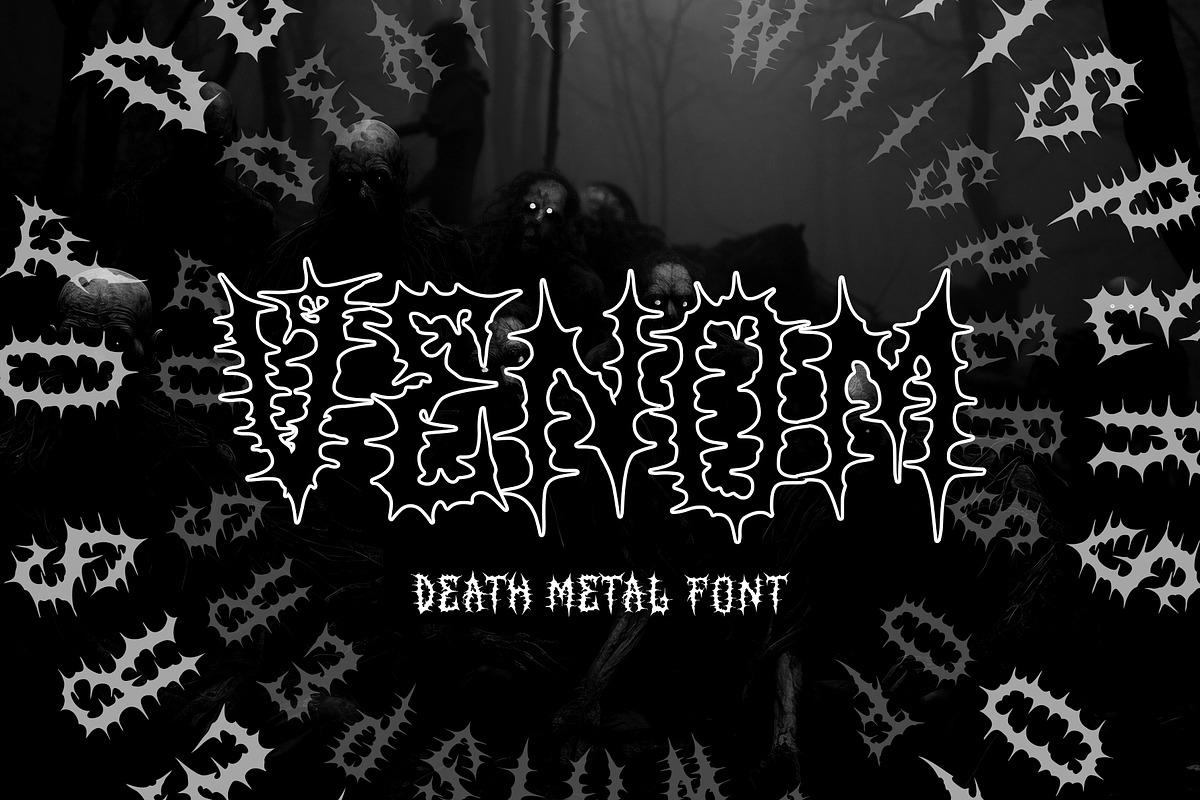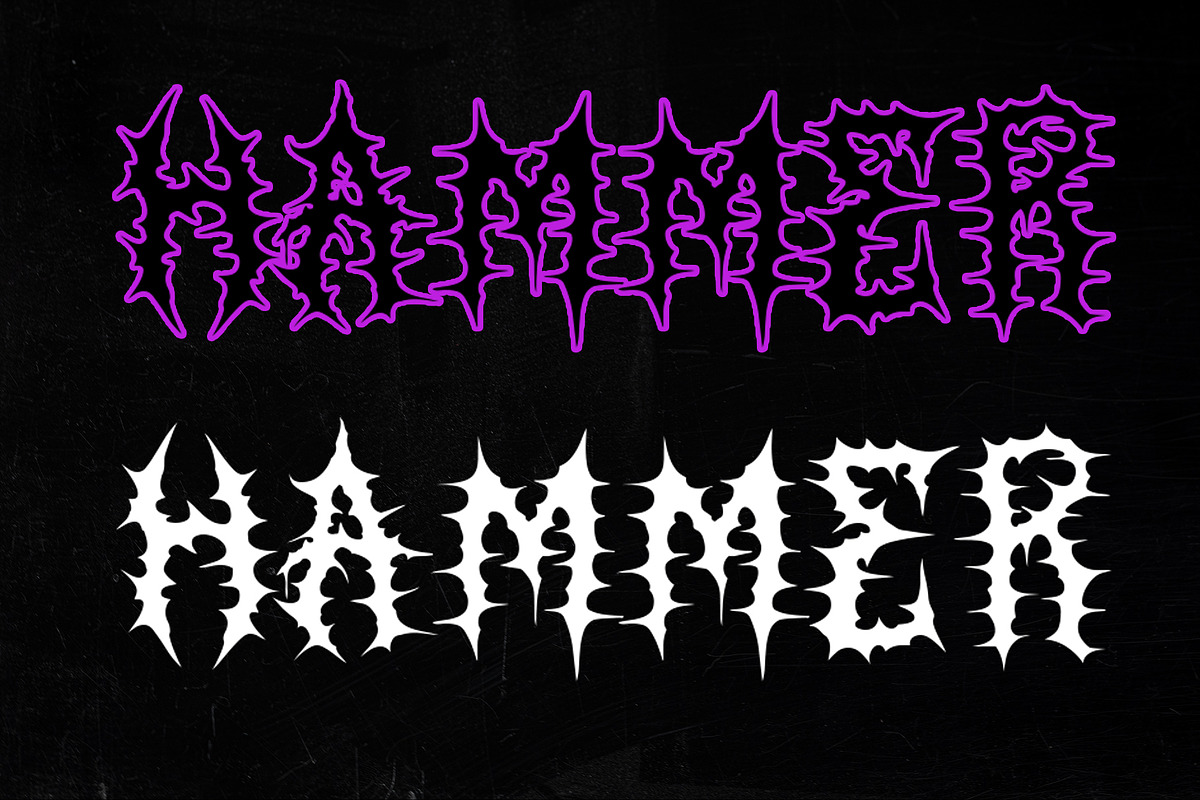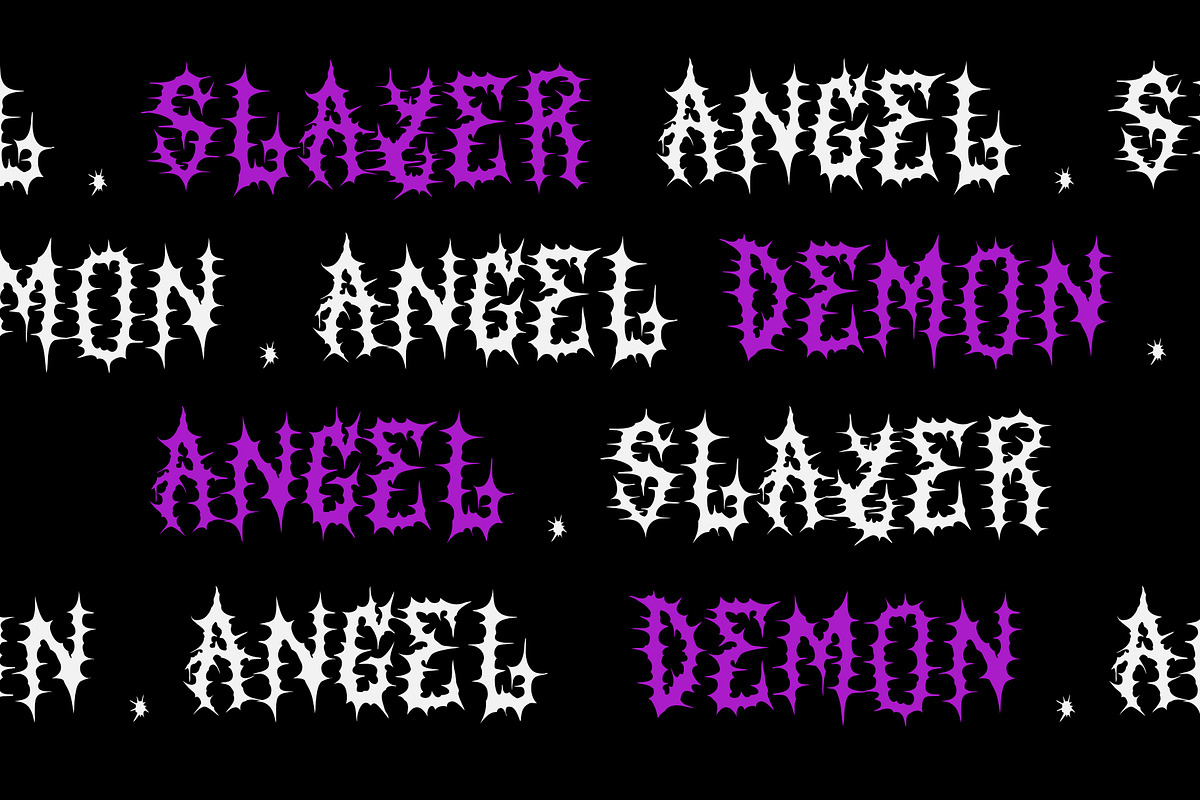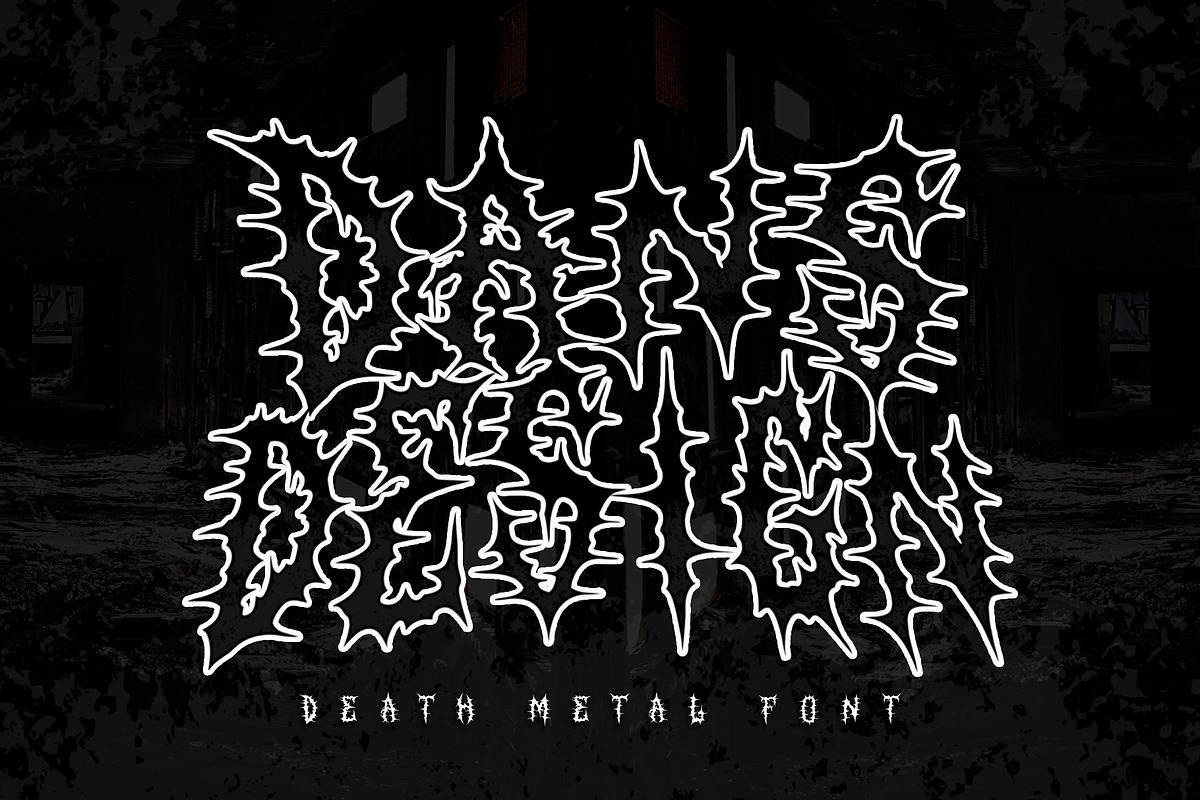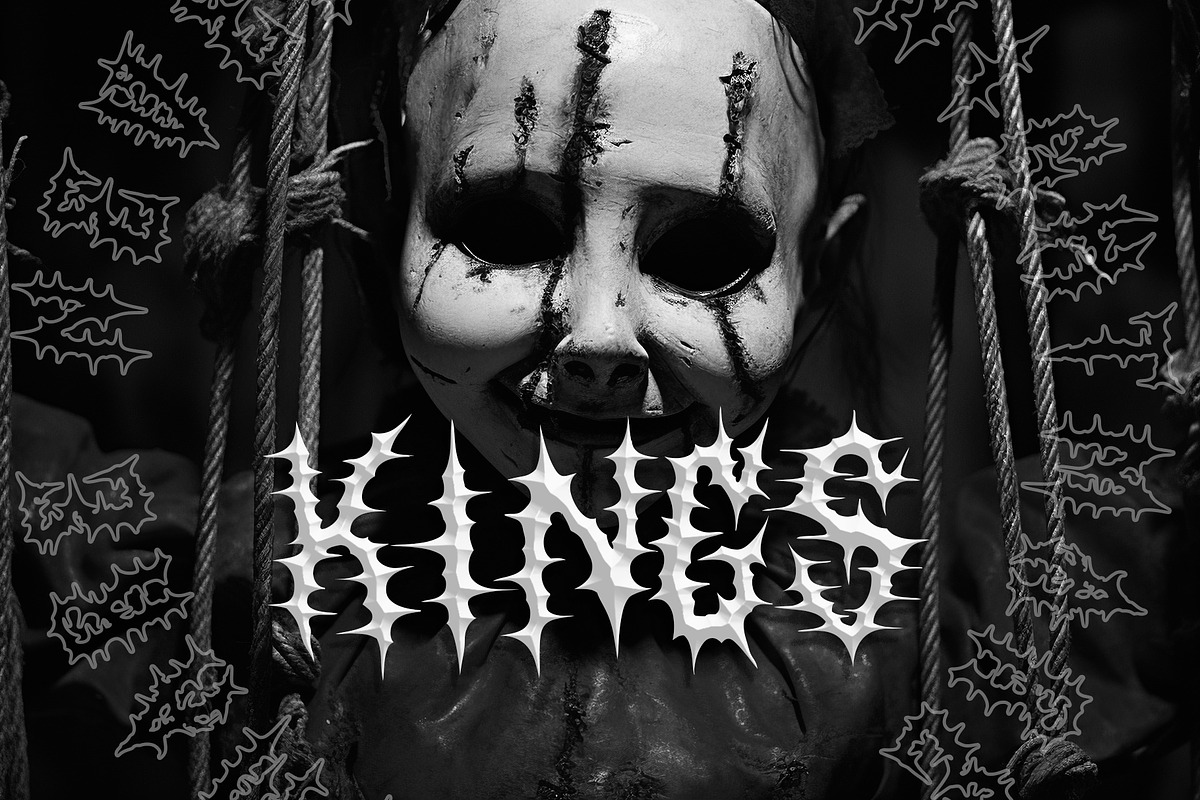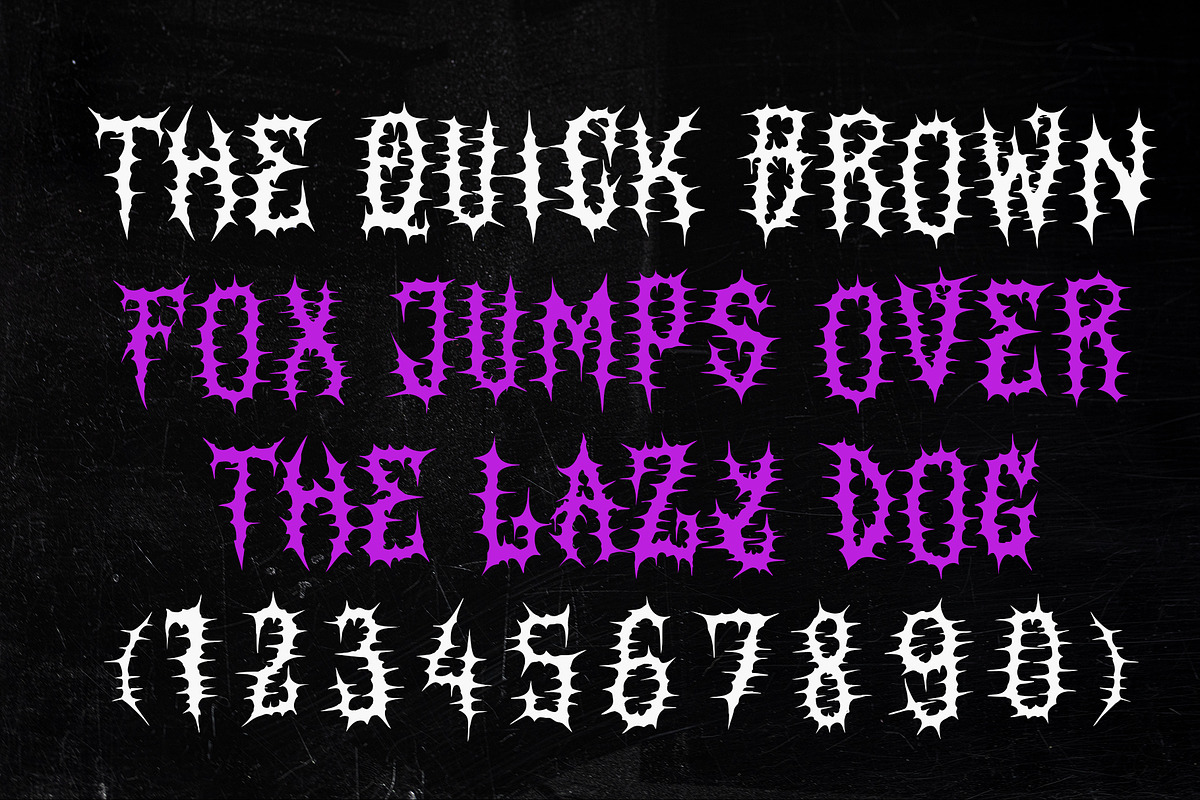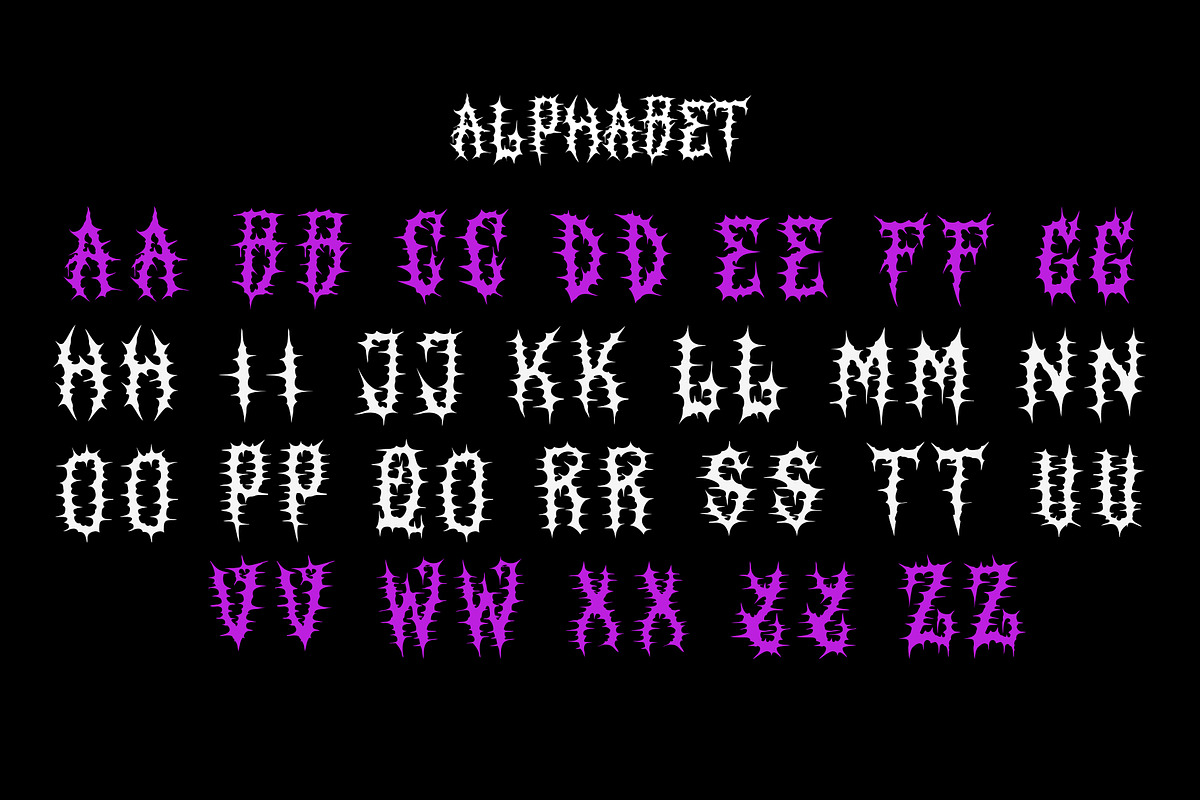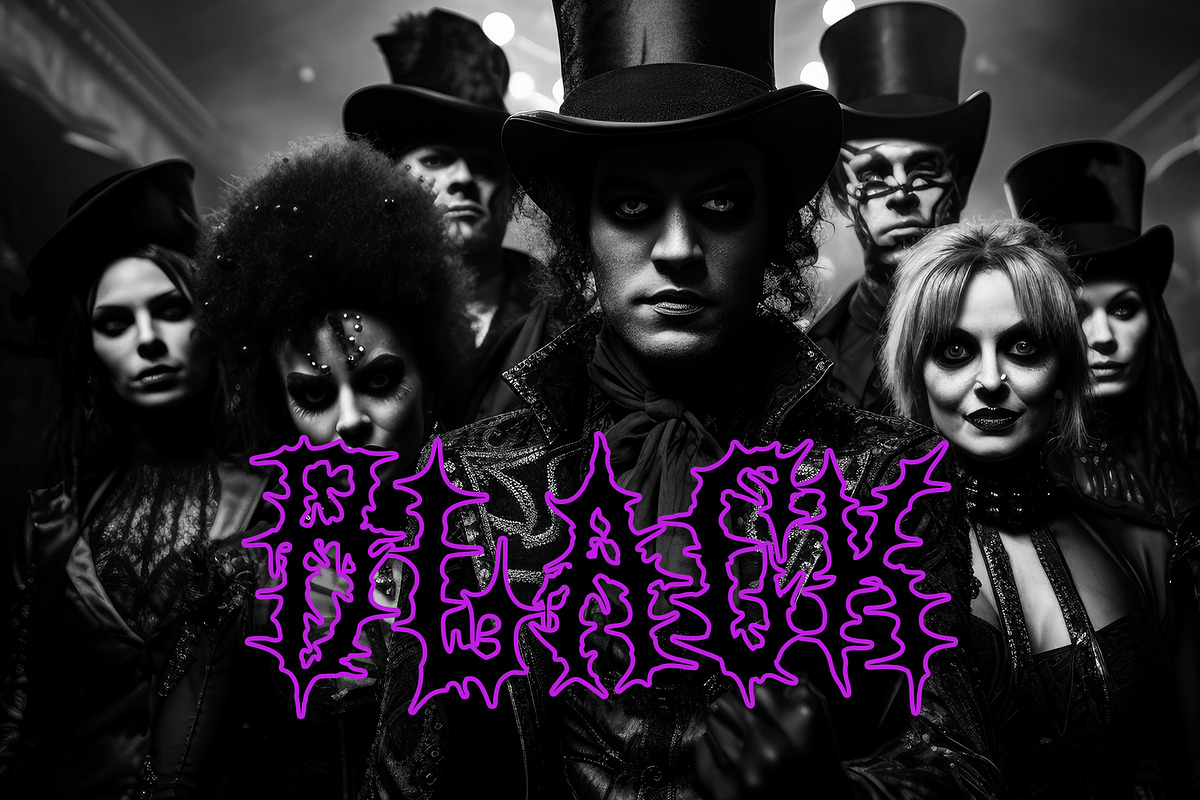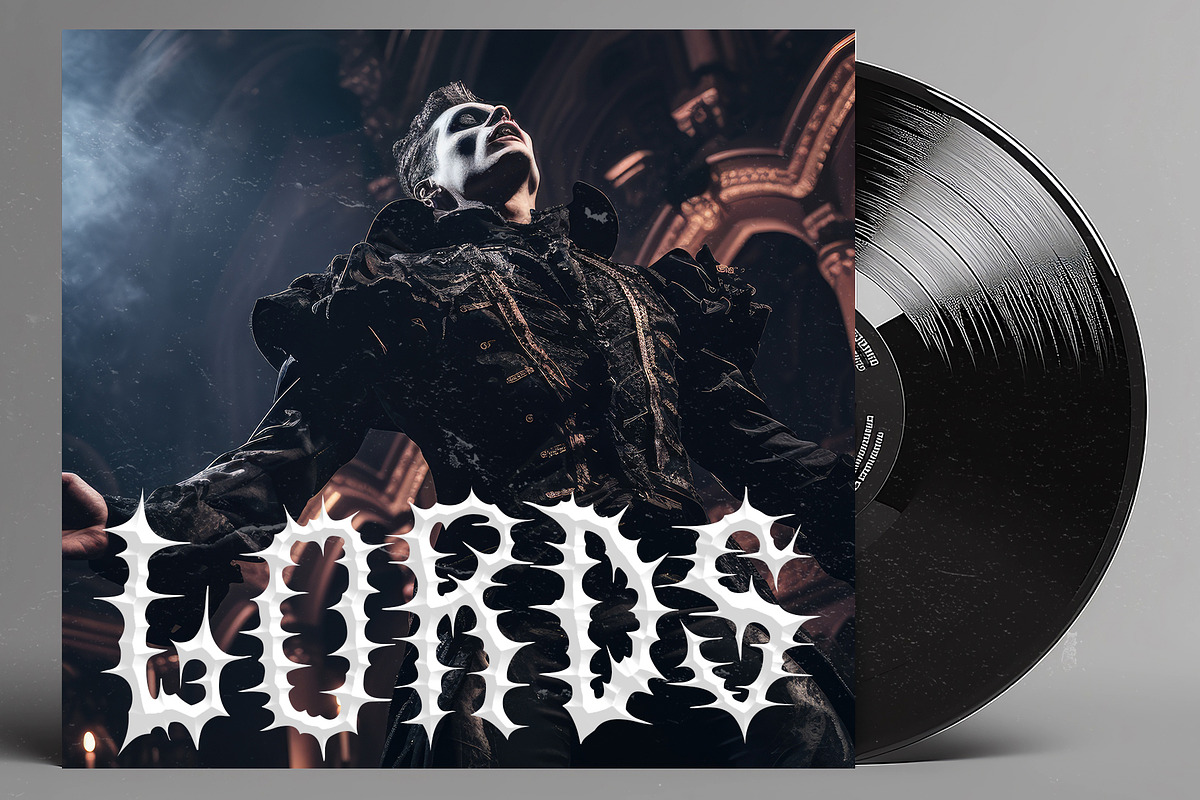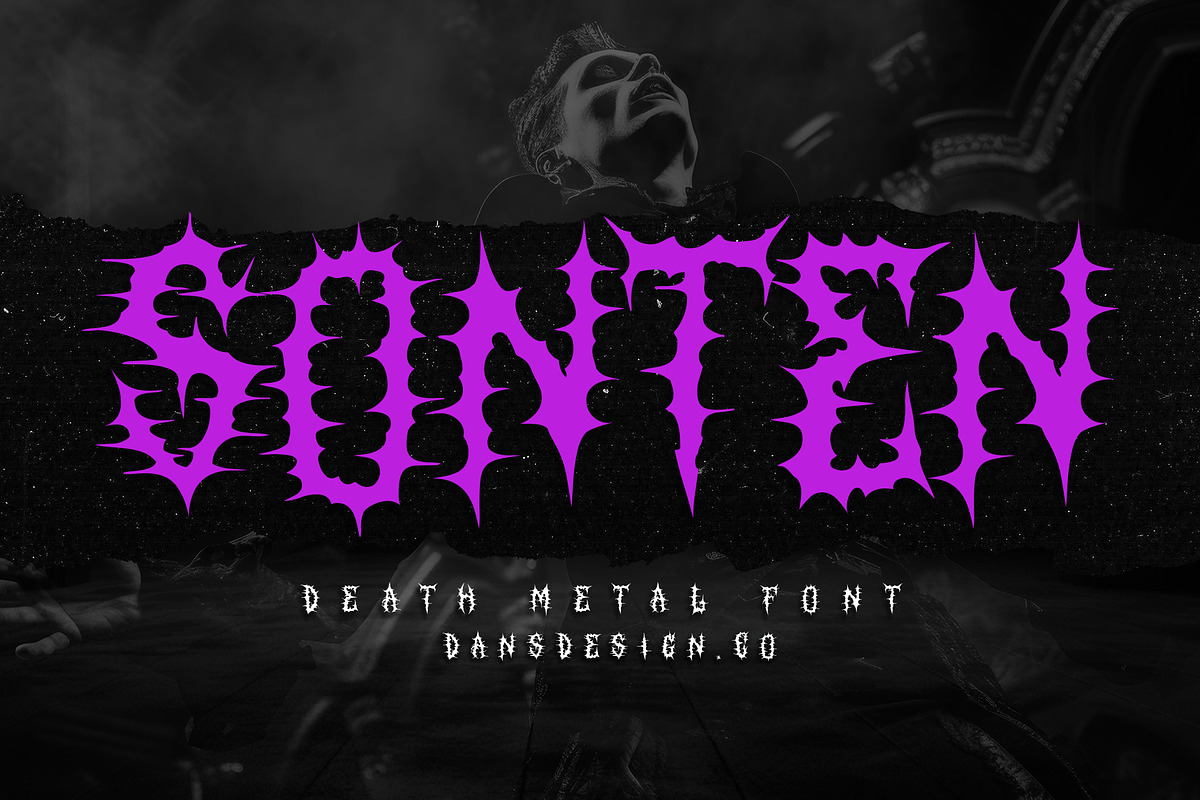
SONTEN Modern Blackletter Metal
Sonten – Modern Blackletter Metal Horror Font is a sharply detailed typeface that merges gothic blackletter elegance with brutal, horror-metal aesthetics. With jagged edges, broken ornaments, and aggressive stylization, Sonten creates an intense visual impact perfect for logos, album covers, concert posters, tattoos, branding, and headline work. This font is designed to stand out—bringing darkness, attitude, and a fierce edge to your designs.